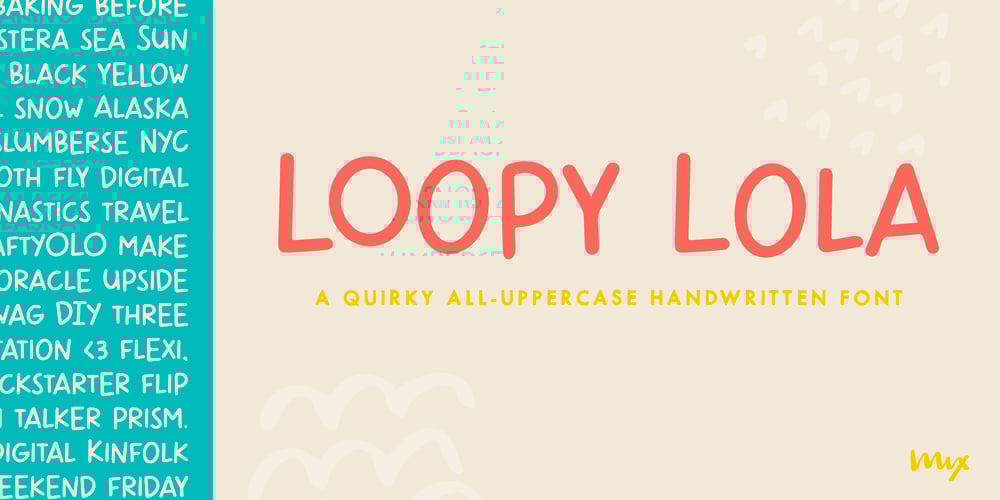
Loopy Lola
Loopy Lola font
Loopy Lola Font Family was designed by Mikko Sumulong and published by Mix Fonts. Loopy Lola contains 1 styles and family package options. MIX LOOPY LOLA is a very fun, quirky, off-kilter all-uppercase handwritten font. This handdrawn typeface is perfect for social media graphics, edgy posters, and bold headlines. Match the font with some fun loopy doodled elements to give your art that added bit of cute.Character set to includes (standard alphabet, punctuation, extended, accented, ligatures): ABCDEFGHIJKLMNOPQRSTUVWXYZ abcdefghijklmnopqrstuvwxyz 0123456789 !@$#%^&*()`~♥❤✿•· ÷×+−±≈=≠≥≤[]:;'”,.|/?{}“”‘’-–—_… ©®™«»°¹²³ªº¡¿₱¢€£¥½¼¾¶§№† ÁÀÂÄÃÅĂĀĄÆĆĈČÇÐĐÉÈÊËĖĒĘĜĤIÍÌÎÏĪĮĴŁŃÑŇ ÓÒÔÖÕØŌŐŒŔŘŚŜŠȘŤȚÚÙÛÜŮŰŪŲẀẂŴÝŶŸŹŽŻÞ áàâäãåăāąæćĉčçðđéèêëėēęĝĥıíìîïīįĵłńñň óòôöõøōőœŕřśŝšșťțúùûüůűūųẁẃŵýŷÿźžżþß LIGATURES: bb dd ff gg itt kk ll mm nn oo pp rr ss tt